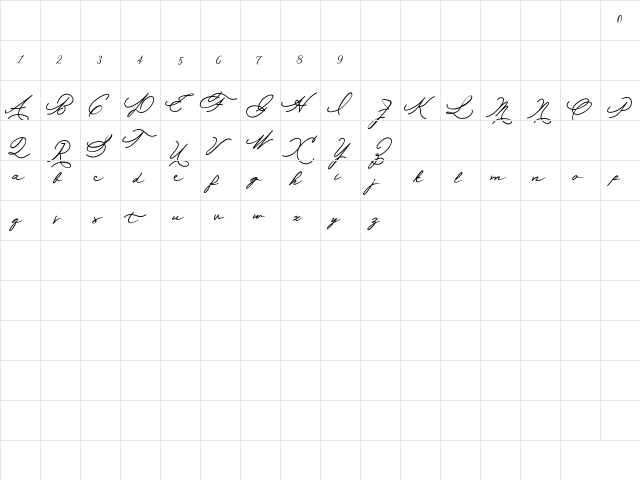
Allexandia Regular
| Designer | Arttotell 2019 |
Design Context for Allexandia Typeface
Allexandia is a composed and adaptable typeface that performs quietly and consistently across a wide range of design contexts.